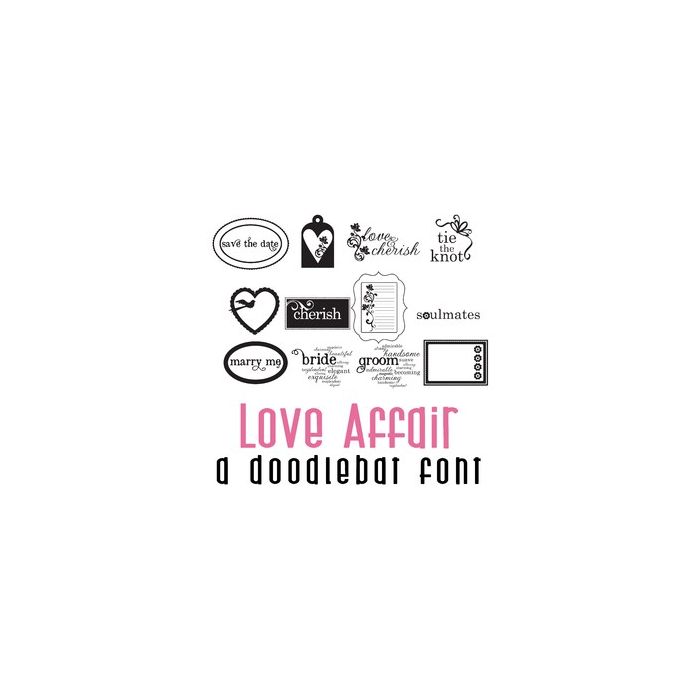
This fun doodlebat font features 26 wedding, engagement, love journaling images. Perfect for cards, crafts, gifts, decor, scrapbook pages, planner stickers, and more!